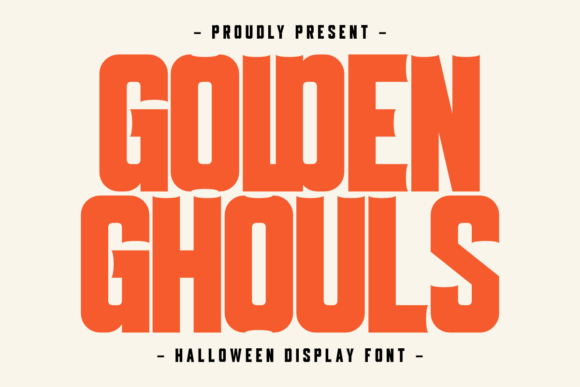
Unleash the Spooky Spirit with Golden Ghouls Font: The Ultimate Halloween Display Typeface
As the spookiest time of the year approaches, designers and creatives are on the lookout for the perfect typography to capture the essence of Halloween. Look no further than the Golden Ghouls Font, a hulking display typeface that shouts from the graveyard gates. This massive, all-caps font is specifically designed to make a bold statement, making it ideal for haunted-house flyers, horror streams, candy packaging, seasonal signage, tees, and bold social promos.
What Makes Golden Ghouls Font So Unique?
Golden Ghouls Font boasts a distinctive design that sets it apart from other typefaces. Its massive all-caps letters stack into tight blocks with tombstone-straight verticals, soft rounded corners, and gouged bite cuts that feel like fangs taken from the baseline. This unique combination of features creates a brutal impact while staying clean on posters and tiny thumbnails.
The wide stance, compact counters, and steady vertical rhythm of Golden Ghouls Font make it perfect for grabbing attention. The subtle scoops in the shoulders add motion, while the blunt terminals keep the silhouette solid for flat color, gradients, or eerie glow effects. This versatility makes it an excellent choice for various design projects, from print materials to digital graphics.
The Perfect Font for Halloween and Beyond
Golden Ghouls Font is specifically designed to deliver instant October energy, making it the perfect choice for Halloween-themed designs. However, its unique style also makes it suitable for other spooky or bold design projects throughout the year. Use it to create eye-catching posters, social media graphics, or even merchandise that demands attention.
Tips for Using Golden Ghouls Font Effectively
To get the most out of Golden Ghouls Font, consider pairing it with a thin grotesk or serif font for contrast. This will create a visually appealing combination that adds depth to your design. Additionally, experiment with different colors, gradients, or textures to enhance the overall effect.
When using Golden Ghouls Font, keep in mind its bold and attention-grabbing nature. Use it sparingly to avoid overwhelming your design. Instead, focus on highlighting key messages or creating a striking visual impact.
Design Ideas to Get You Started
Here are some design ideas to inspire you to create something spooky and amazing with Golden Ghouls Font:
- Haunted-house flyers with bold, eye-catching headlines
- Horror streams or YouTube video titles that demand attention
- Candy packaging that stands out on store shelves
- Seasonal signage for Halloween events or parties
- T-shirts or merchandise with a bold, spooky message
- Social media graphics that grab attention and drive engagement
Golden Ghouls Font is a game-changer for designers and creatives looking to add a touch of spookiness to their work. Its unique design, versatility, and ease of use make it the perfect choice for a wide range of design projects. Whether you’re creating haunted-house flyers, horror streams, or social media graphics, Golden Ghouls Font is sure to deliver instant October energy – loud, legible, and gloriously spooky.